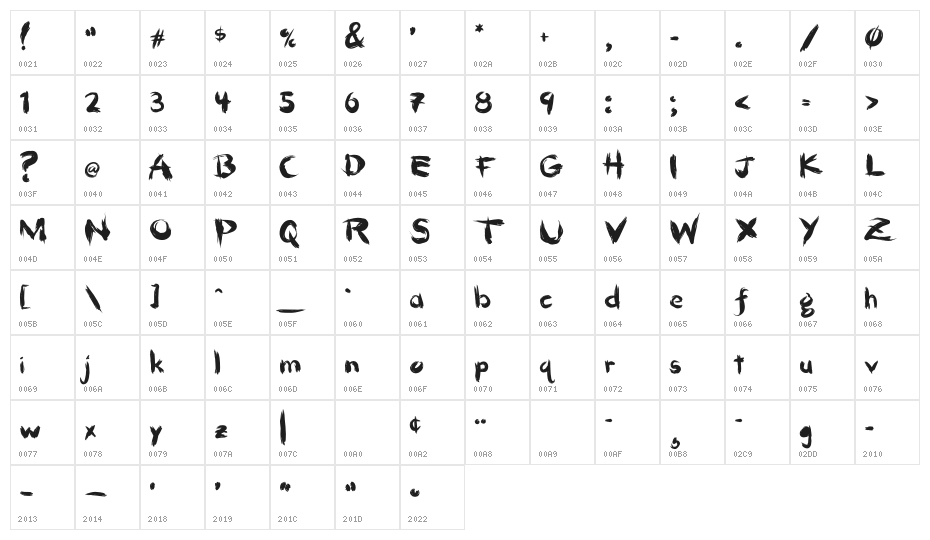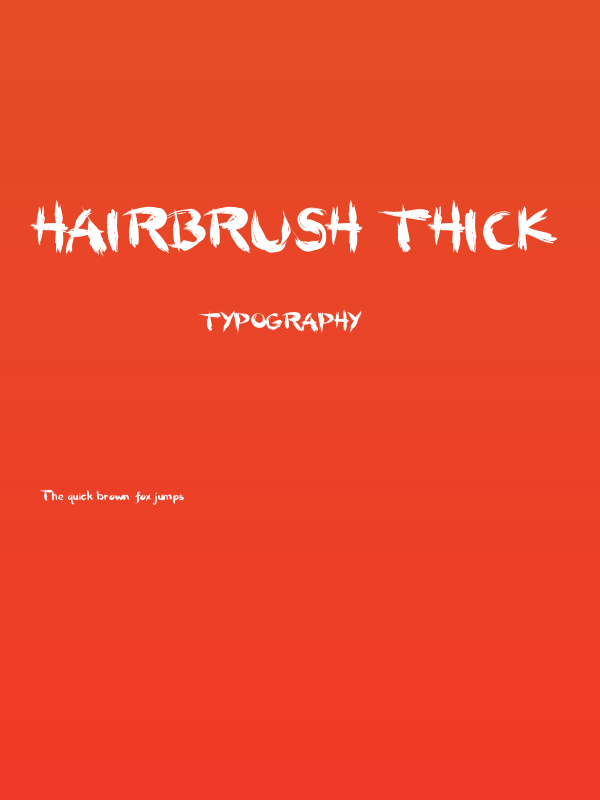
HairBrush Thick Font
HairBrush Thick Description
This font features a bold, expressive brush style that mimics the texture and flow of thick paint strokes. The characters have a dynamic and energetic appearance, with irregular edges and varying stroke widths that give it a handcrafted feel. The uppercase and lowercase letters maintain a consistent style, while the numerals and special characters are equally bold and impactful. This font is ideal for making a statement, with its artistic flair and attention-grabbing design.
| Proposed Projects | Ideal for artistic projects, posters, branding, and any design needing a bold, creative touch. |